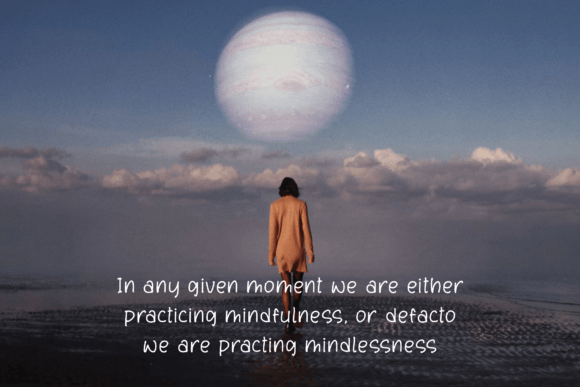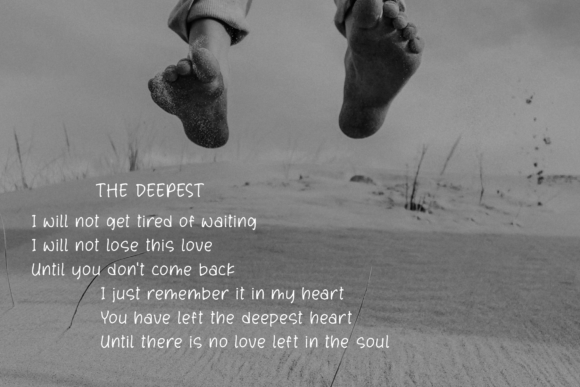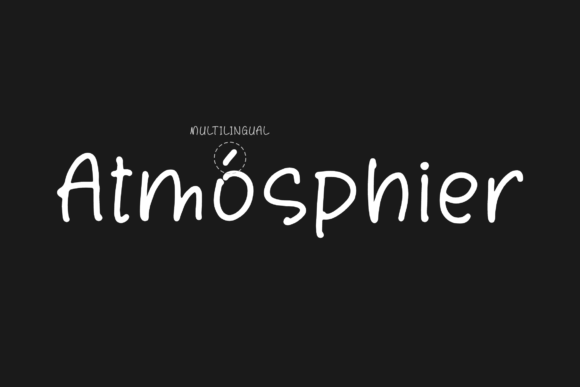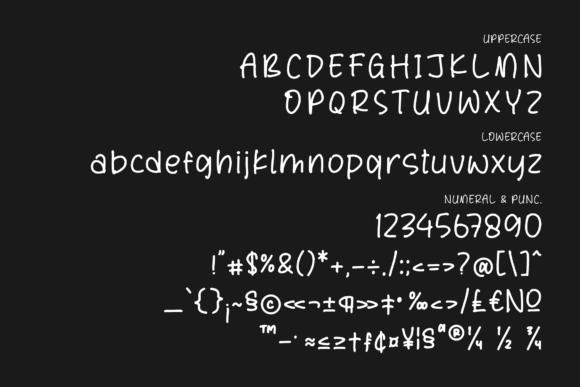
About Atmosphier Notes Font
**Atmosphier Notes** is a beautiful handwritten font that brings a touch of elegance and sophistication to a wide range of projects. This versatile font is suitable for a myriad of design applications, making it a valuable asset for creating stunning visuals in various contexts.
One of the standout features of Atmosphier Notes is its elegant and well-crafted script style. Each letter is thoughtfully designed to exude a sense of beauty and refinement, making this font an excellent choice for projects where you want to convey a touch of sophistication.
The versatility of Atmosphier Notes shines in various design contexts. It can be applied to logos, branding projects, homeware designs, product packaging, mugs, quotes, posters, shopping bags, t-shirts, book covers, name cards, invitation cards, greeting cards, labels, photography watermarks, special events, and more. Its beautiful script style ensures that your work is not only visually appealing but also conveys a sense of taste and elegance.
For logos and branding projects, Atmosphier Notes adds a touch of sophistication and uniqueness to your brand identity, making it memorable and captivating.
In product packaging and labels, this font enhances the visual appeal and refinement of your products, creating a sense of luxury and style.
For posters and quotes, Atmosphier Notes brings an element of elegance and beauty to your messages, making them more impactful and resonant.
In greeting cards and special event invitations, this font sets a tone of sophistication and makes your designs feel personalized and meaningful.
Atmosphier Notes is a font that elevates the visual and emotional impact of your projects. Whether you’re working on branding, product packaging, posters, or special event invitations, Atmosphier Notes can be your go-to font for adding a touch of elegance and beauty that enhances the overall appeal of your creative work.